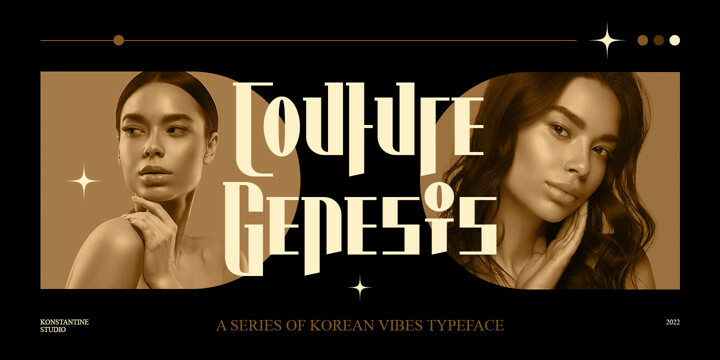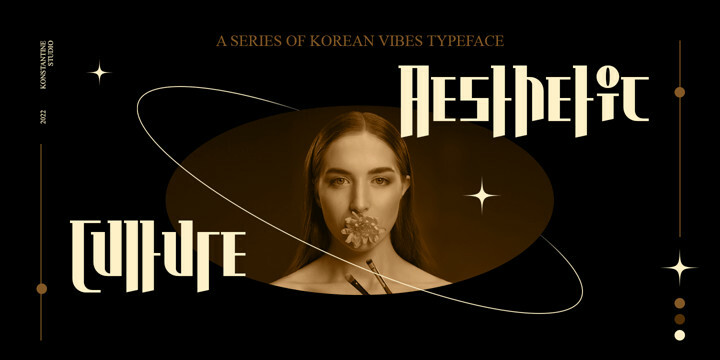
Hwaiting Serif Font
Hwaiting Serif FontInspired by the emerging Korean culture that grabbing the worldwide actuation in so many realms of the industry. To bridge the vibes and to make it easier to consume, we found the gap to fill with simple things in life that are useful for it, and yes, it’s a new day it’s a new font.
So without any further ado, please welcome Hwaiting Serif. 3/3 series of Korean vibes typefaces. It’s a serif font with a thick and thin style of visuals, aiming the luxury and glamorous tone to catch up with high-fashion branding and today’s graphic design trends
Crafted with deep research about Korean traditional letters, shaped up with the approach of universal Latin letters.